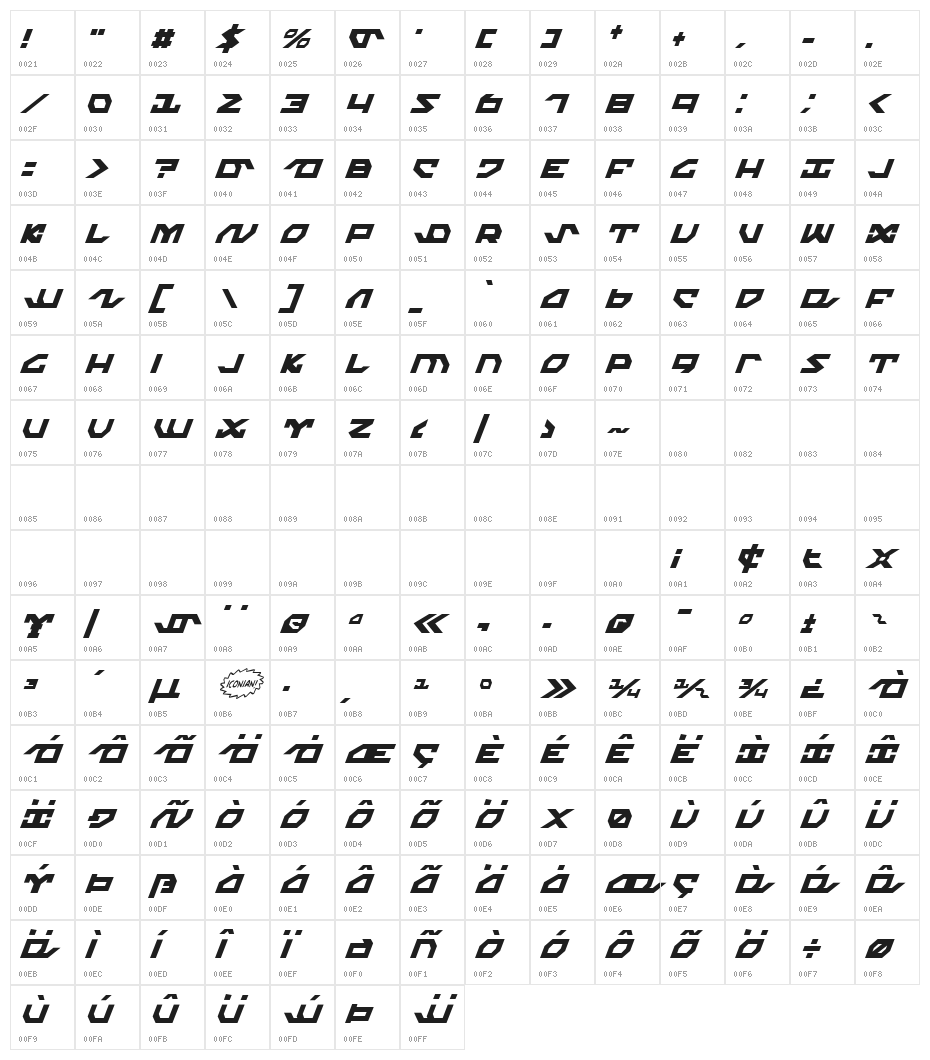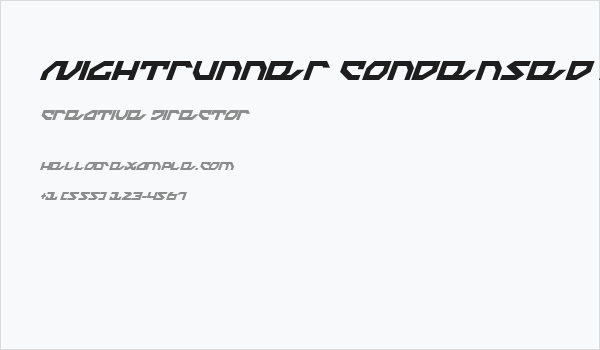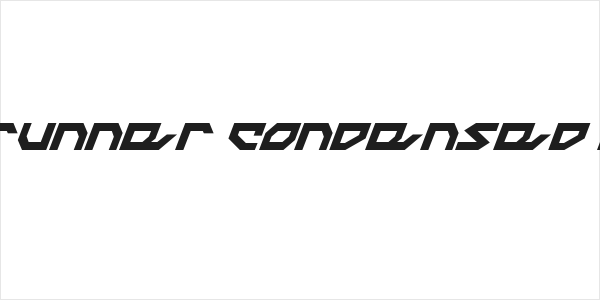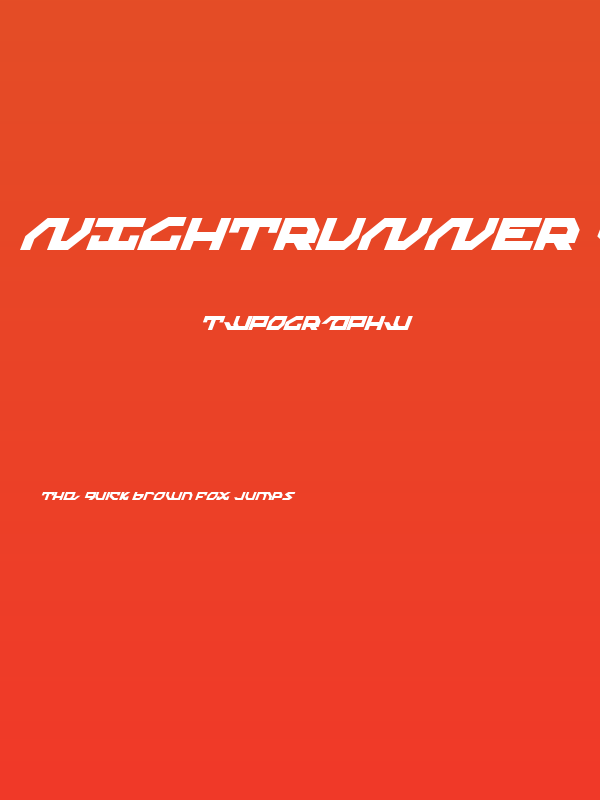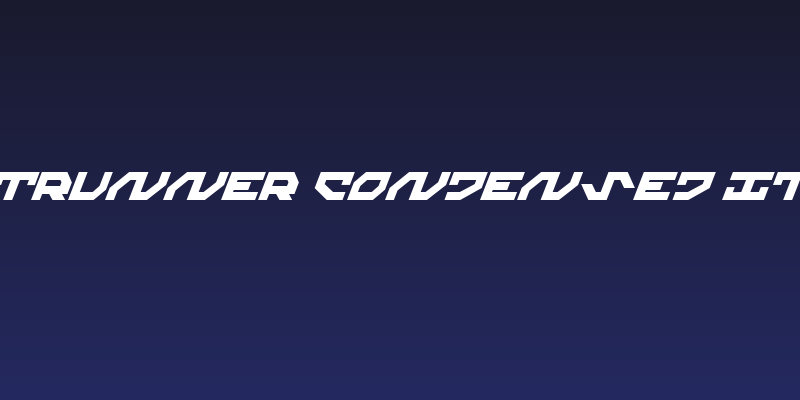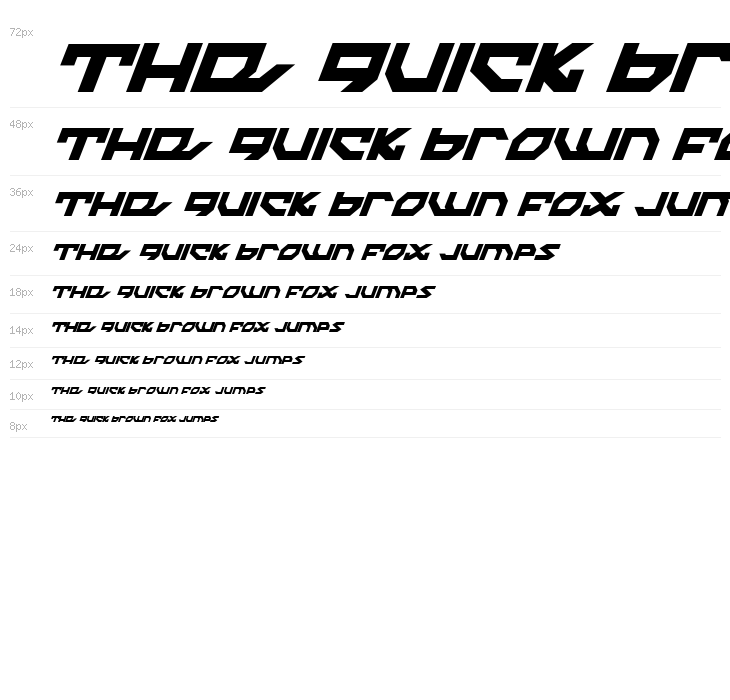
Nightrunner Condensed Italic Font
Nightrunner Condensed Italic Description
This font features a bold, angular design with a futuristic and dynamic appearance. The characters are sharply cut with a condensed form, giving it a sleek and modern look. The italic style adds a sense of motion and speed, making it ideal for projects that require a sense of urgency or modernity. The uppercase and lowercase letters maintain a consistent style, with numbers and special characters following the same geometric pattern. The overall design is striking and eye-catching, suitable for attention-grabbing headlines or branding.
| Proposed Projects | Ideal for sci-fi movie posters, video game titles, tech branding, and sports team logos. |